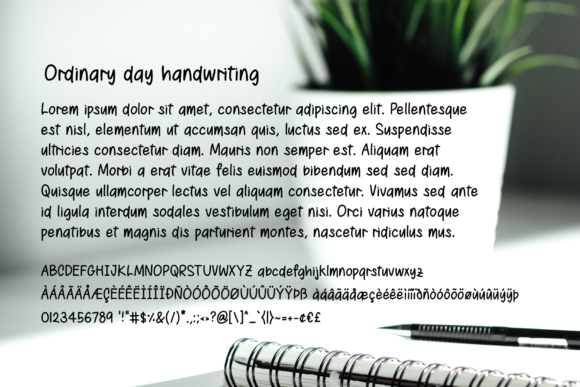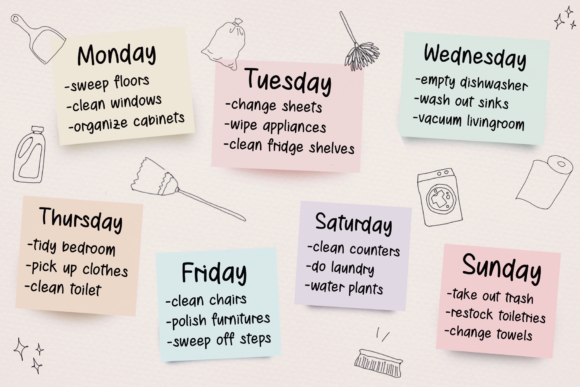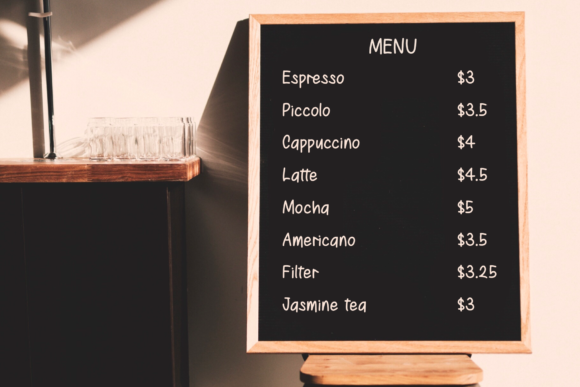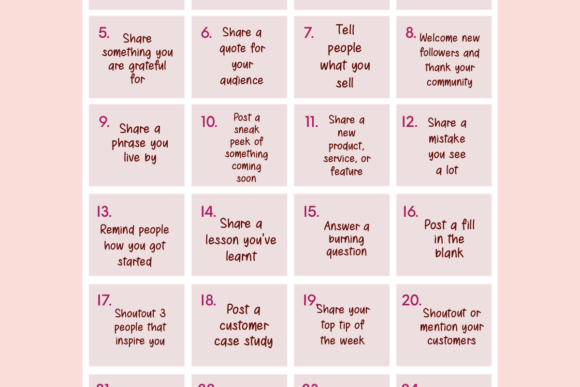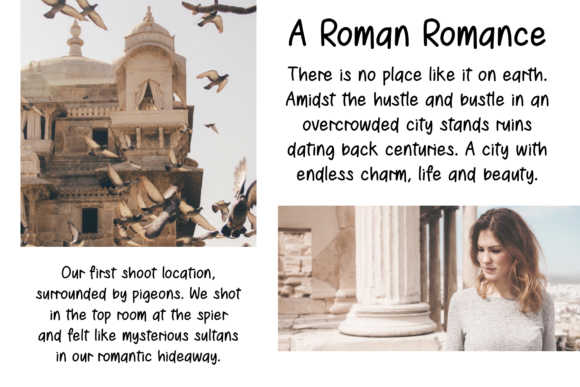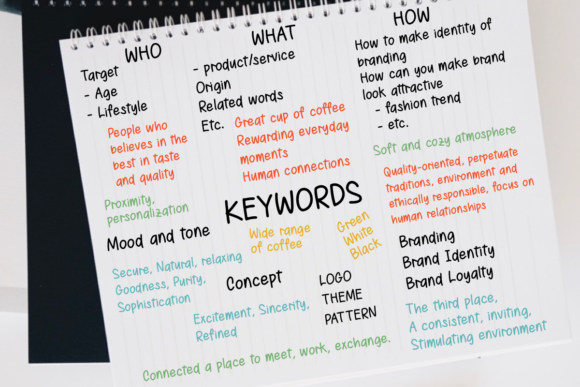
Introduction to Ordinary Day Font Font
Fonts play a crucial role in design, and the Ordinary Day Font font is a typeface that brings both character and versatility to any project. Whether you’re working on a branding project, a website, or a print design, the Ordinary Day Font font offers a unique style that can elevate your work.
Ordinary Day is a simple, clean and natural handwritten font.
You can use this font for various projects, such as logos, branding, invitations, greeting cards, blog posts, and much more .
Key Features of Ordinary Day Font Font
Why Choose Ordinary Day Font Font?
The Ordinary Day Font font is more than just a typeface – it’s a design tool that helps you communicate your message with style and clarity. Its unique character set and versatile design make it suitable for a wide range of applications, from elegant invitations to bold headlines.
With its carefully crafted letterforms and balanced proportions, the Ordinary Day Font font ensures readability and visual appeal across all mediums.
What makes Ordinary Day Font font special?
The Ordinary Day Font font stands out with its unique design, exceptional readability, and versatility across various design applications.